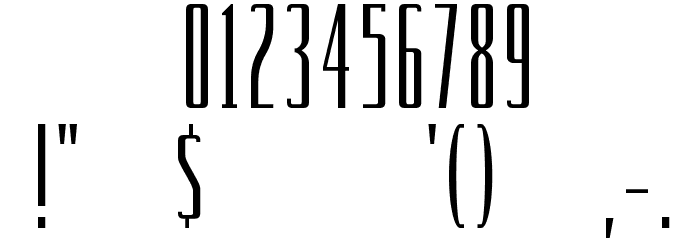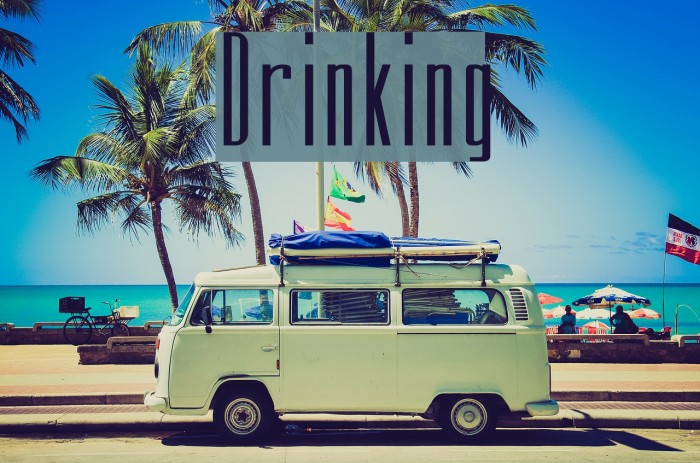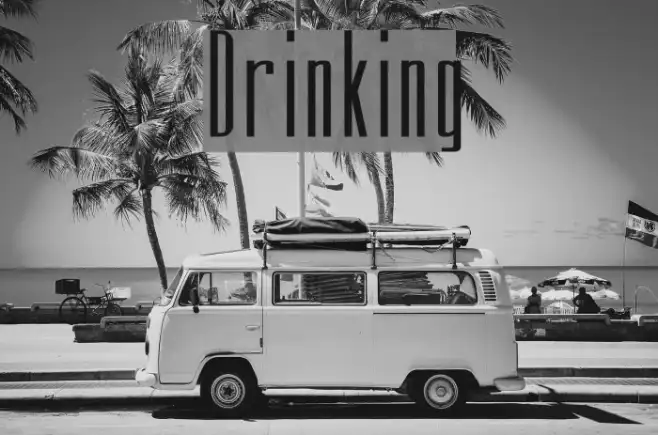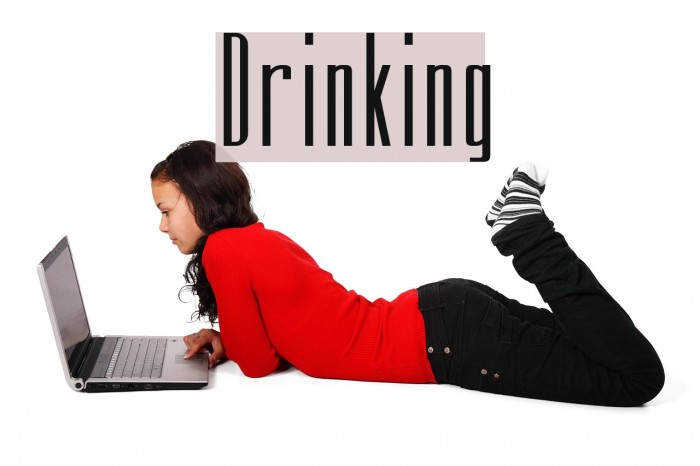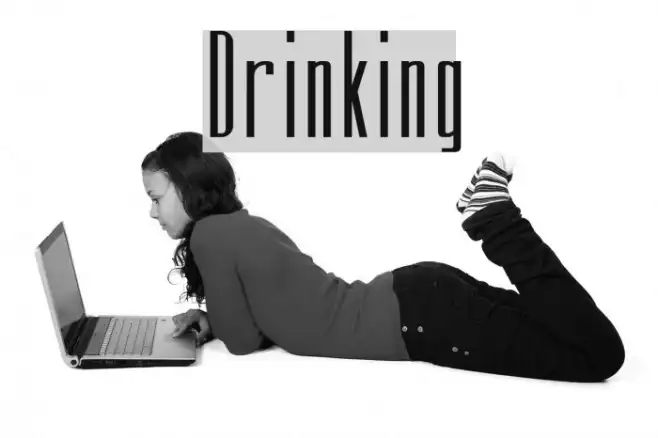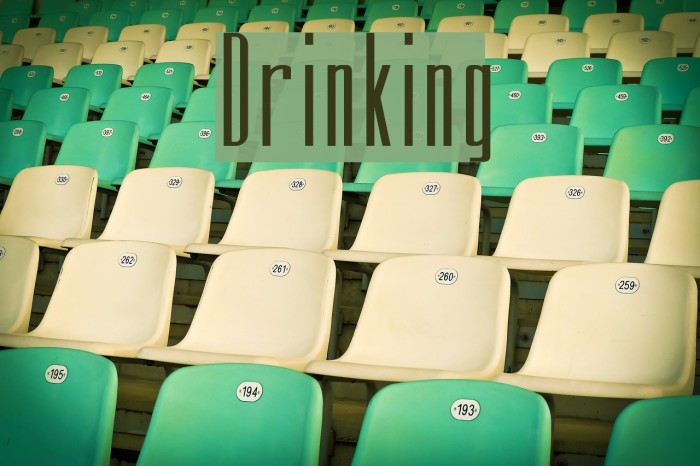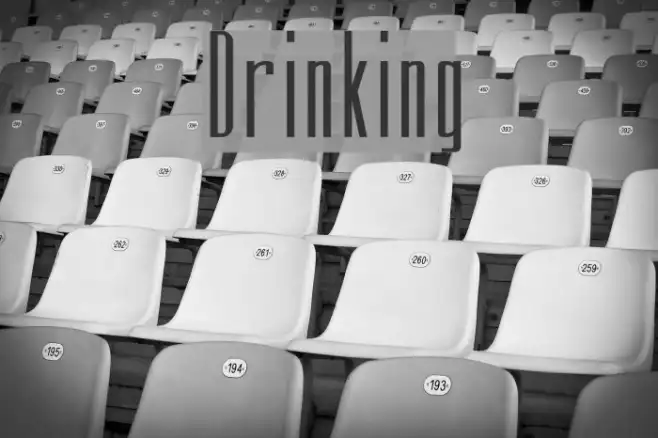
Drinking Font
Drinking Description
This font features a tall and narrow design, characterized by its elongated vertical lines and minimalistic style. The uppercase letters are particularly striking, with a consistent height and a sleek, modern appearance. The lowercase letters maintain the same narrow structure, providing a cohesive look across different text sizes. The numerals are similarly designed, ensuring readability while maintaining the font's unique aesthetic. Special characters are included, offering versatility for various design needs. This font's clean lines and high legibility make it suitable for both digital and print media.
| Proposed Projects | Ideal for magazine headlines, posters, branding materials, and modern web design. |